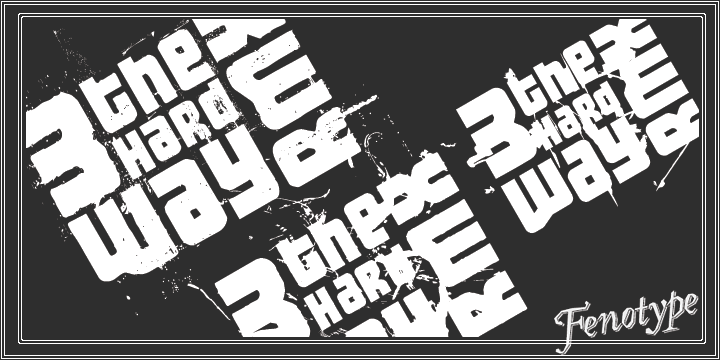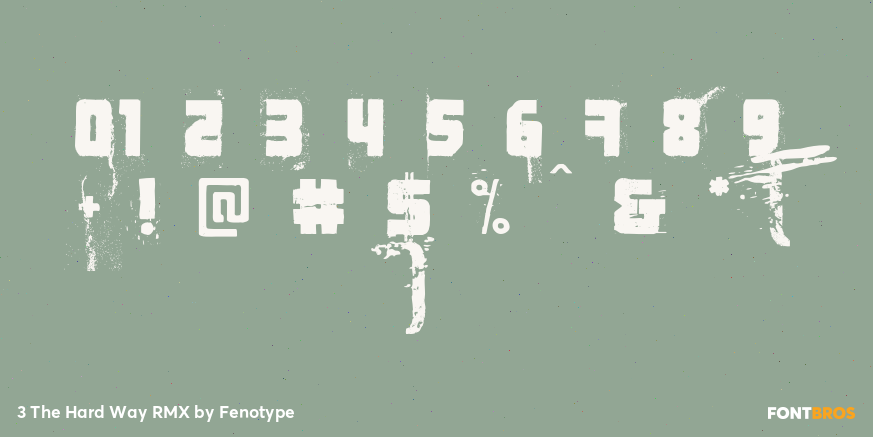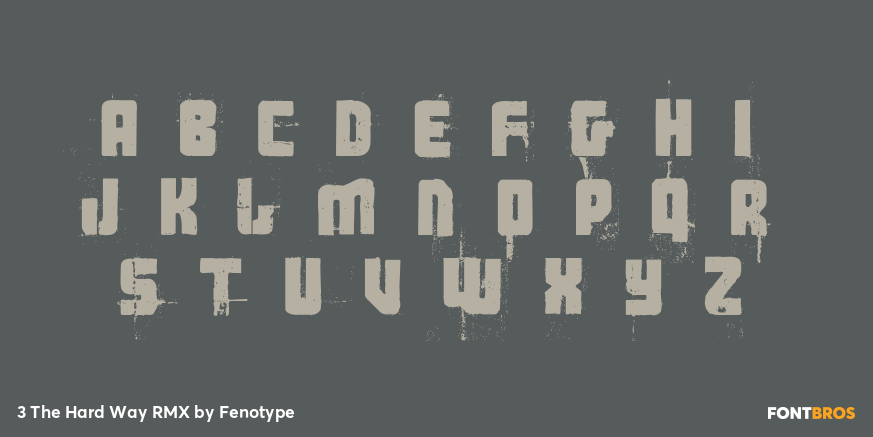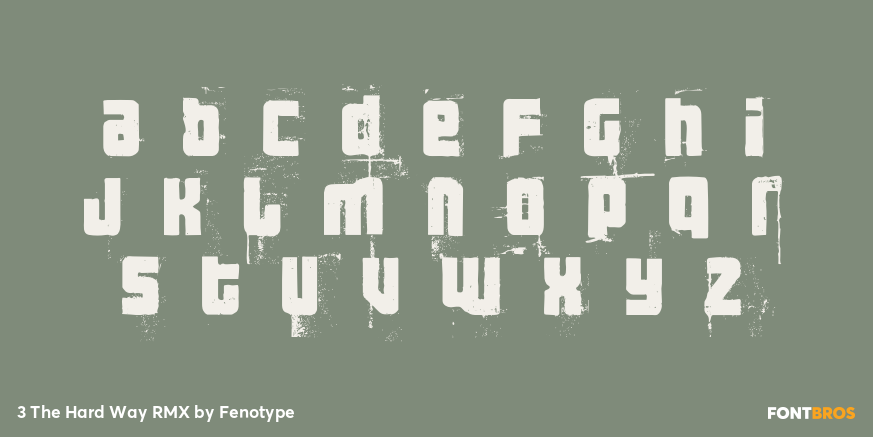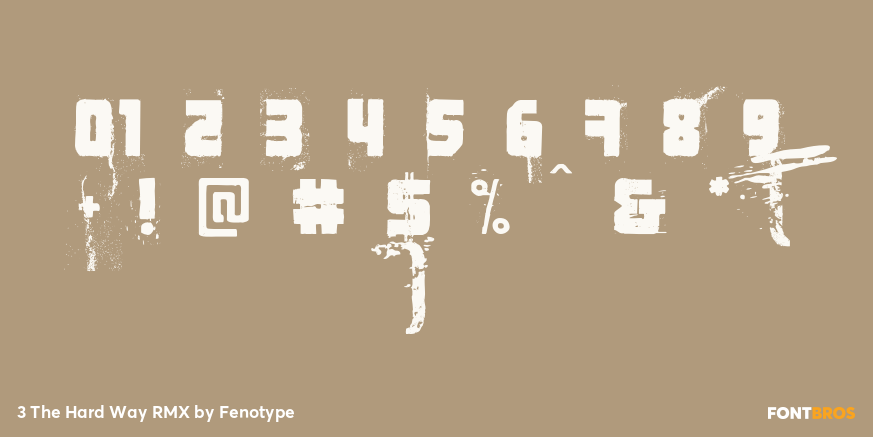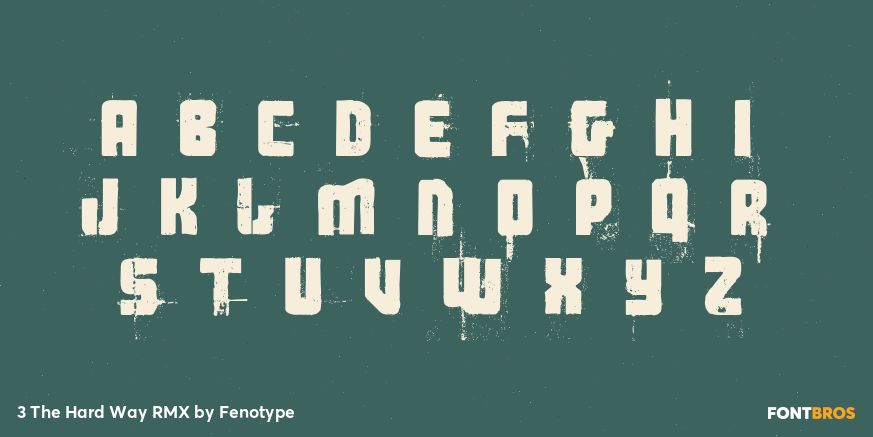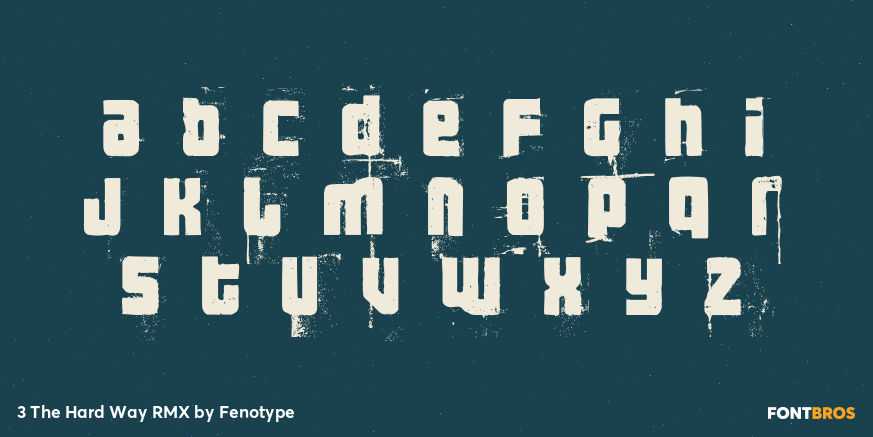
3 The Hard Way RMX
Font Family by Fenotype
3 The Hard Way RMX is a distressed graffiti-inspired display family with a raw, urban edge. Its rough texture and hand-worked feel give headlines and short phrases an energetic, streetwise presence that reads bold and expressive rather than polished or formal.
Offered in 3 styles—Light, Regular, and Bold—this family gives you room to dial in the right amount of weight while keeping the same gritty character throughout. It’s a strong fit for posters, music graphics, apparel, branding, and other display work that benefits from a worn, graffiti-influenced look.
Created by Fenotype, this family is especially useful when you want typography that feels immediate, textured, and visually loud. Use it where personality matters and a clean, neutral voice would feel too restrained.